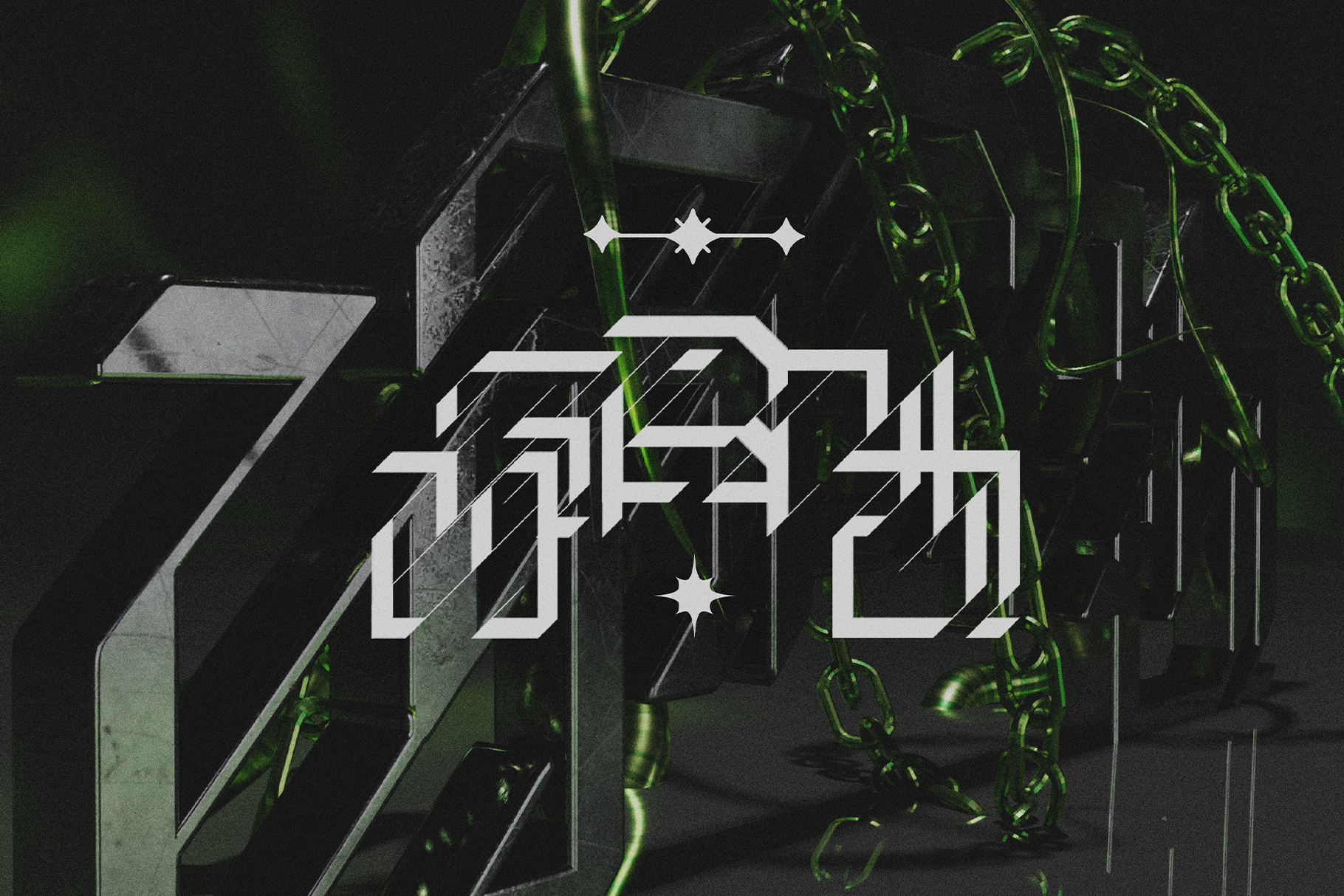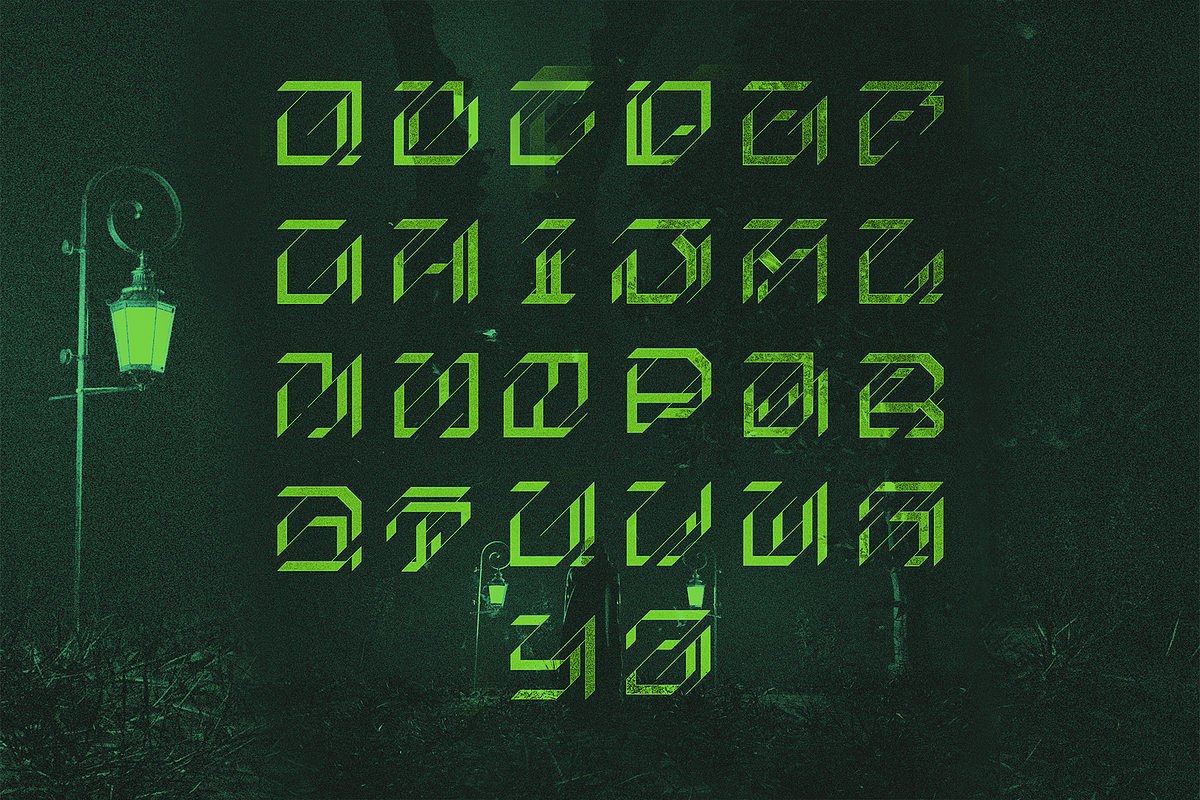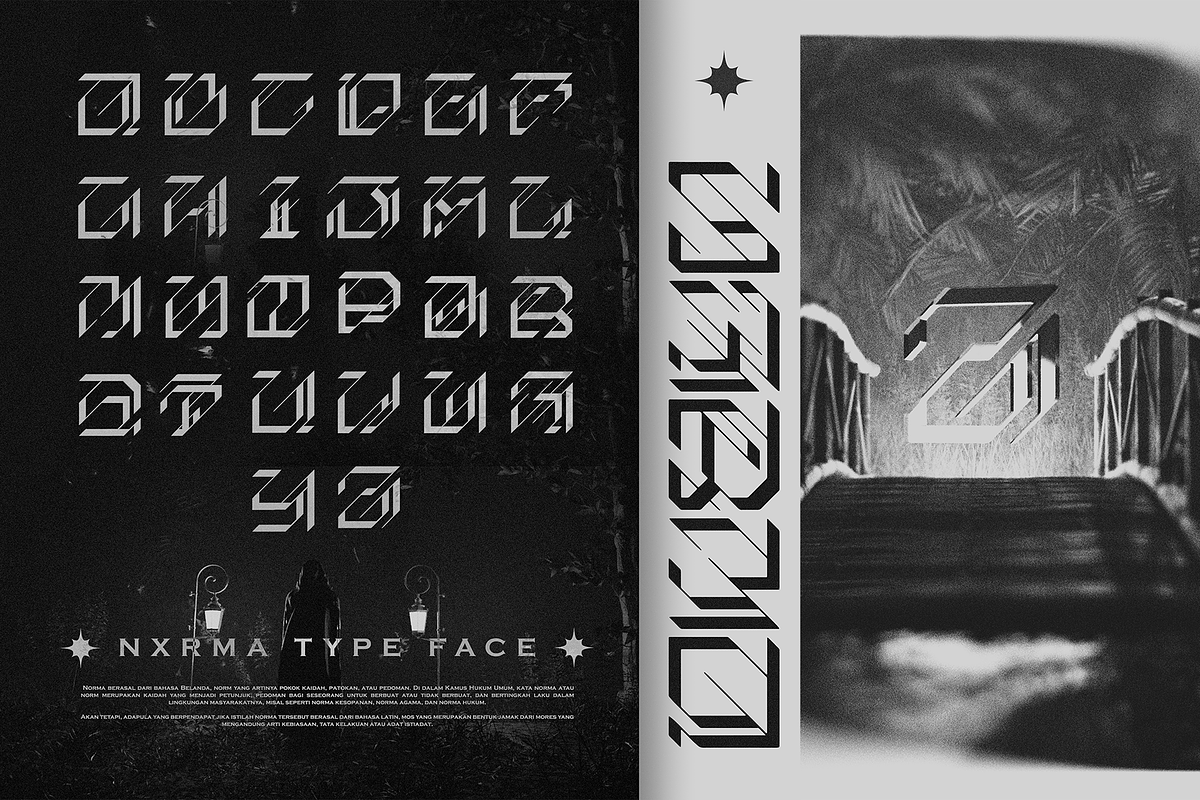
NXRMA TYPEFACE // Display Font
The NXRMA Typeface is a display font designed by Indonesian designer NXRMALIST. It is inspired by the ancient writings of the Javanese tribe named “HANACARAKA”. like HANACARAKA, NXRMA has a solid design between one line to another but looks neat and beautiful.